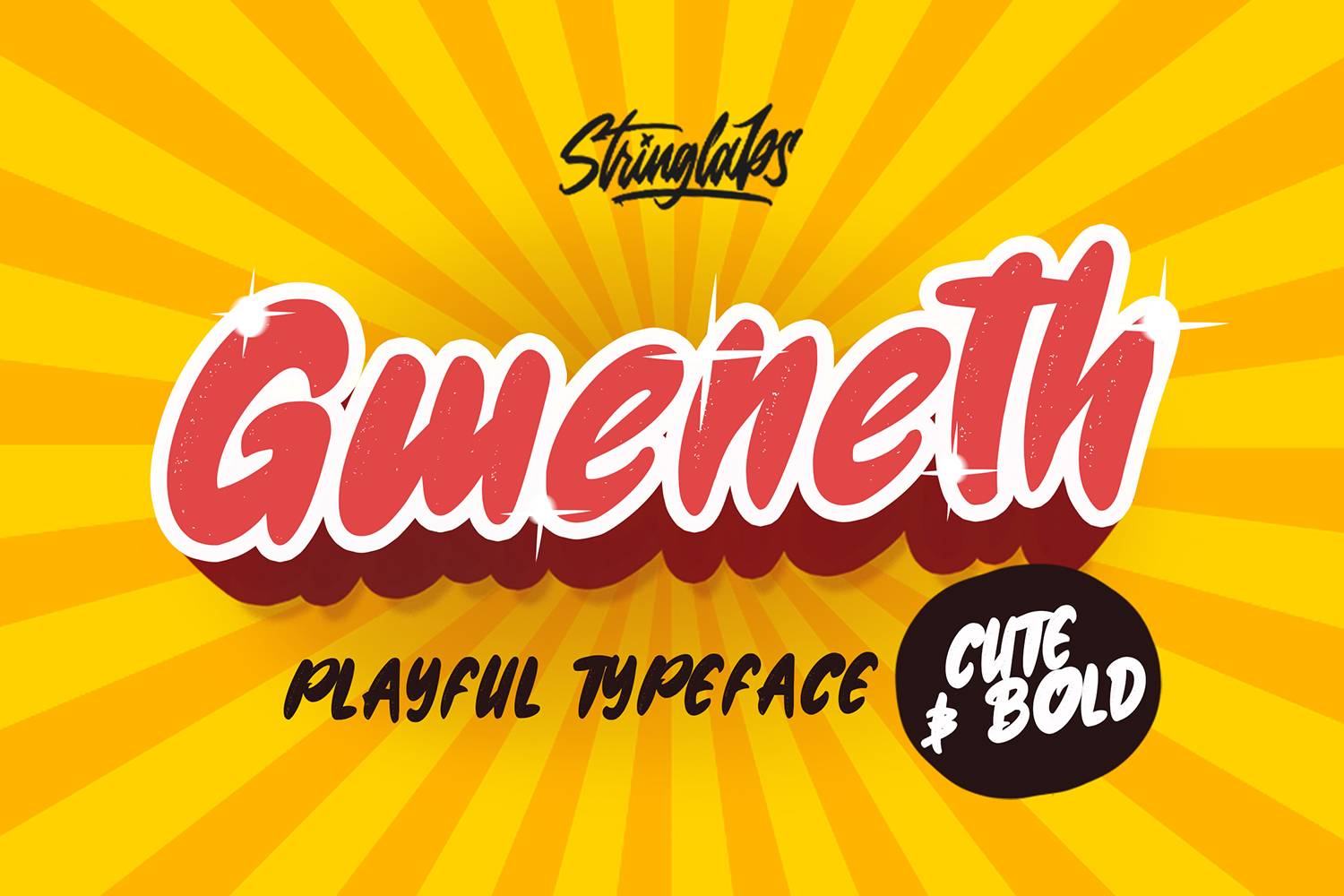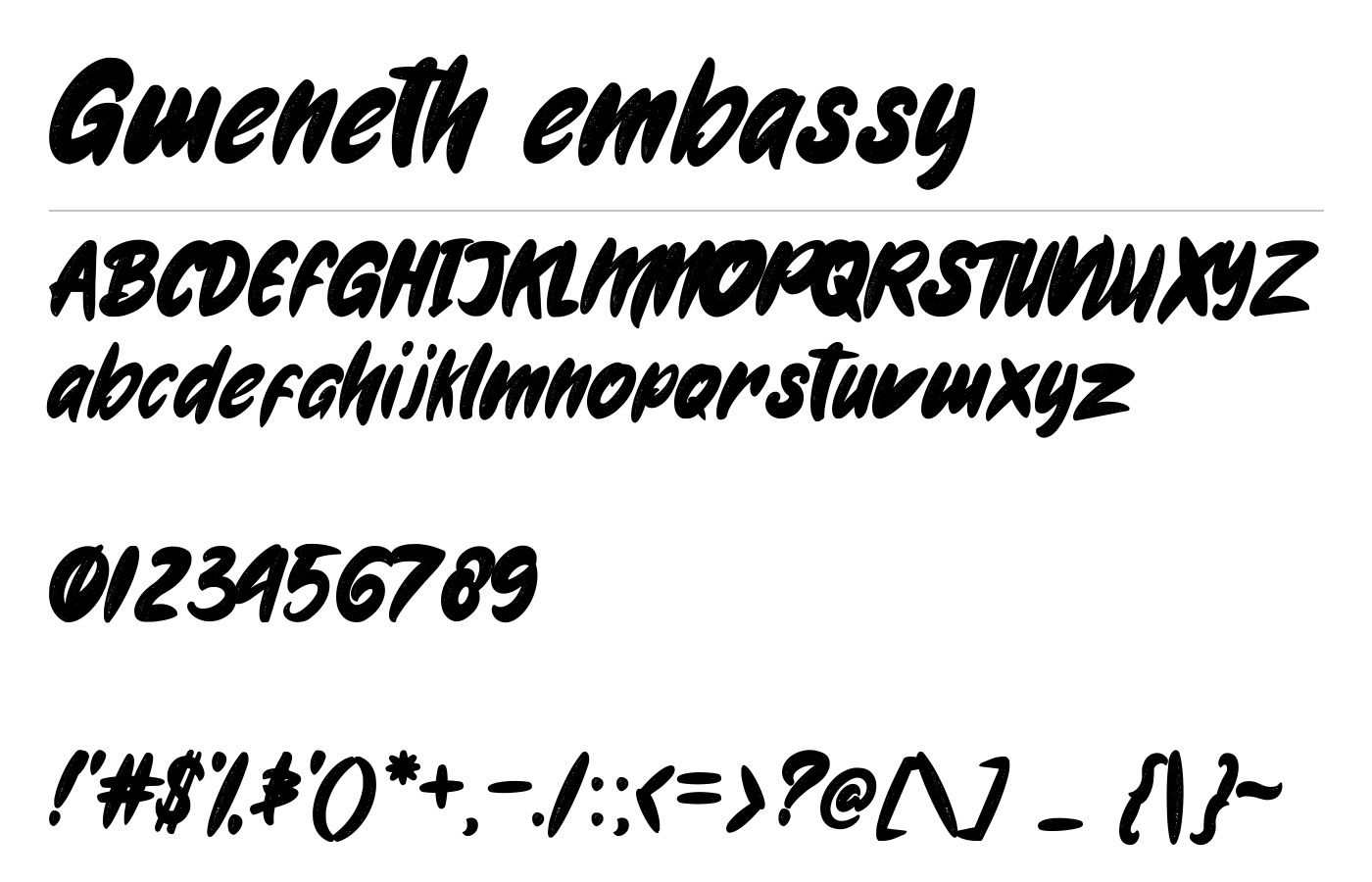
Gweneth Font is a bold, brush-style script with a lively and energetic feel. Its thick, dynamic strokes and natural, handwritten texture make it perfect for playful, informal branding or eye-catching headlines that need a personal touch. This font works well in creative projects, packaging, and social media where a friendly, bold personality is desired.
Gweneth Font
About Gweneth Font